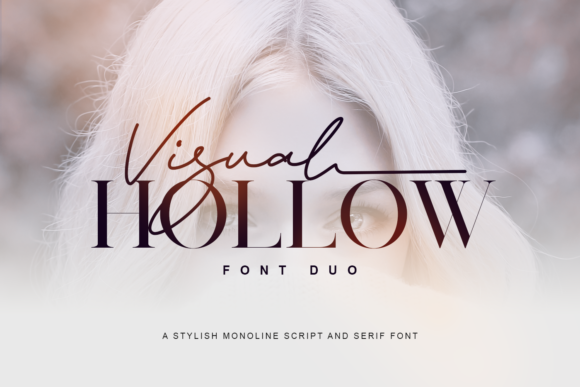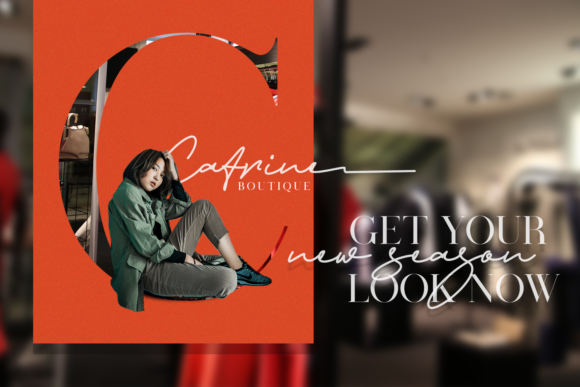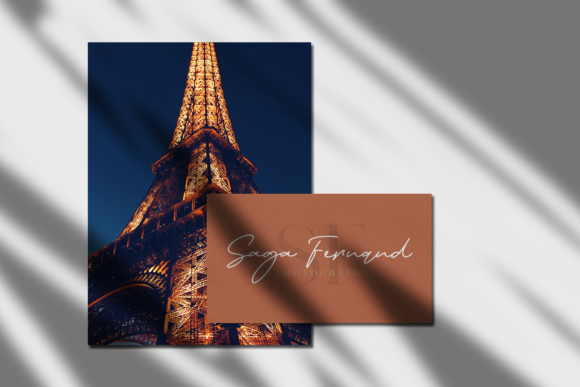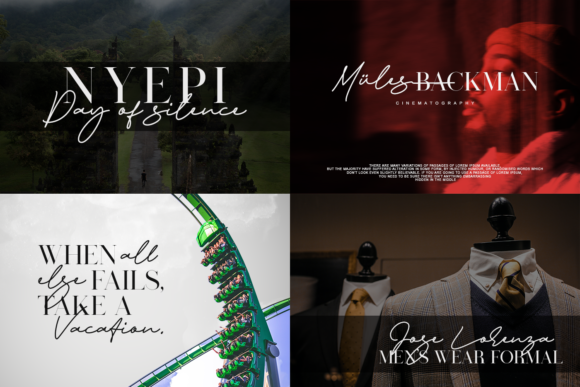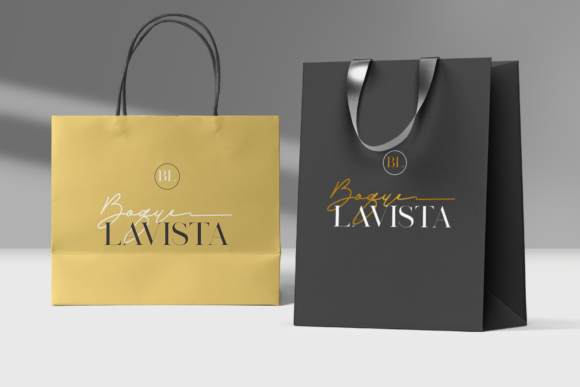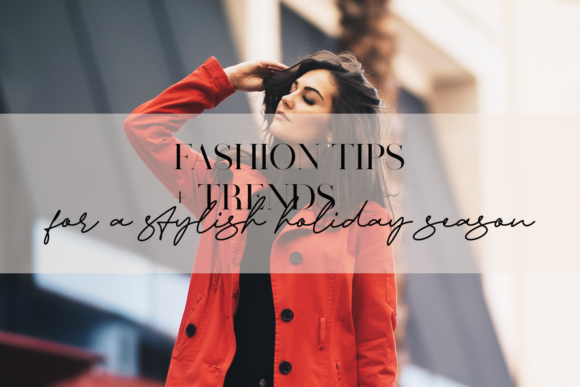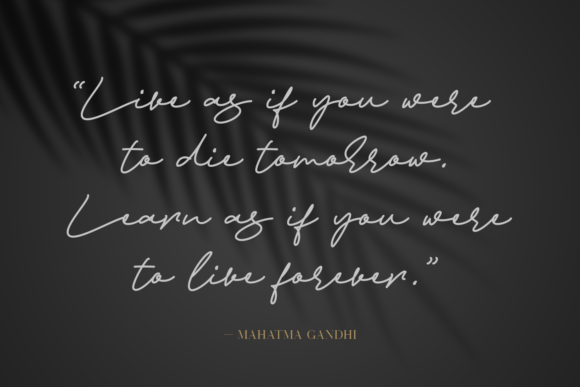
Visual Hollow Font
Visual Hollow is a spectacular duo font (serif and script). Incredibly versatile, this font fits a wide pool of designs, elevating them to the highest levels. Add this font to your favorite creative ideas and notice how it makes them come alive!